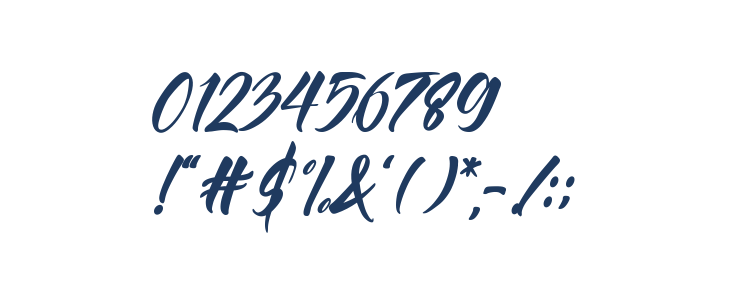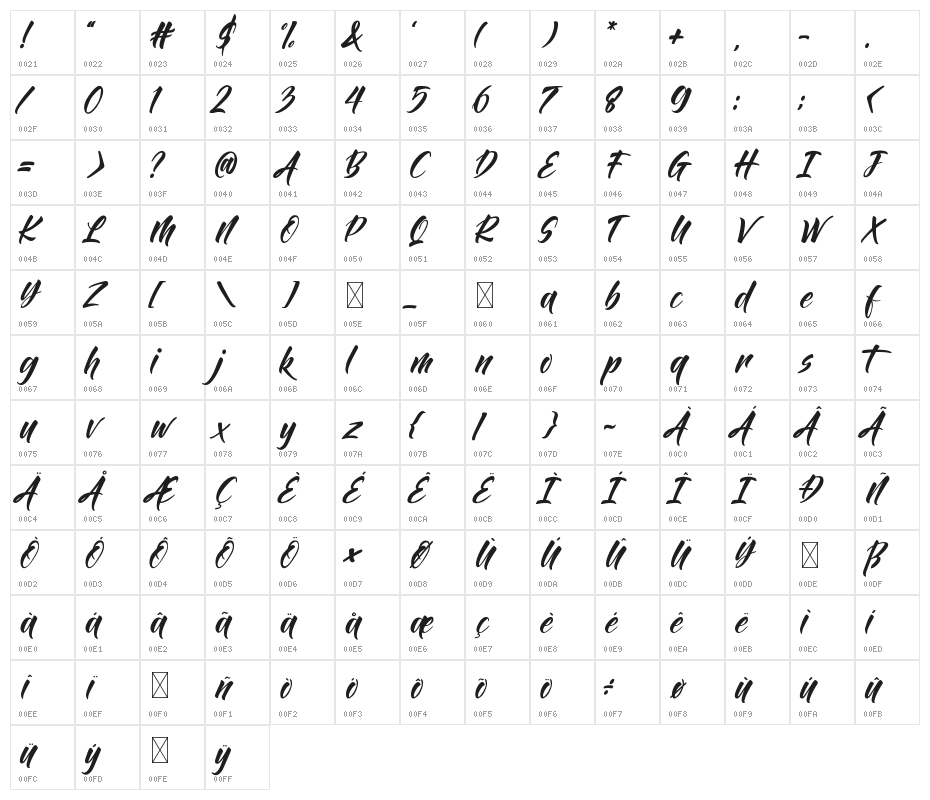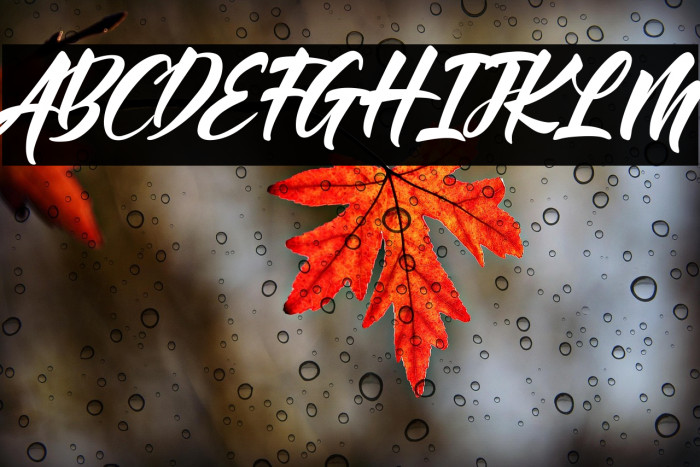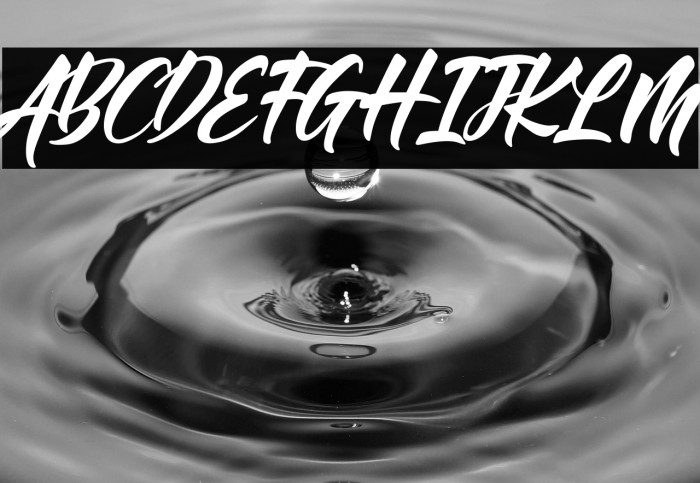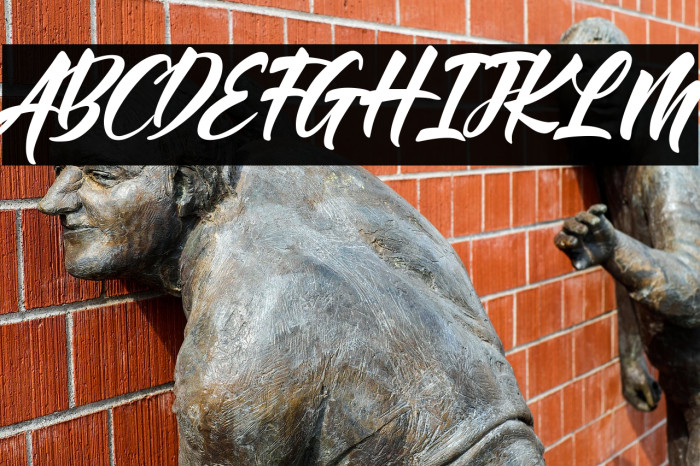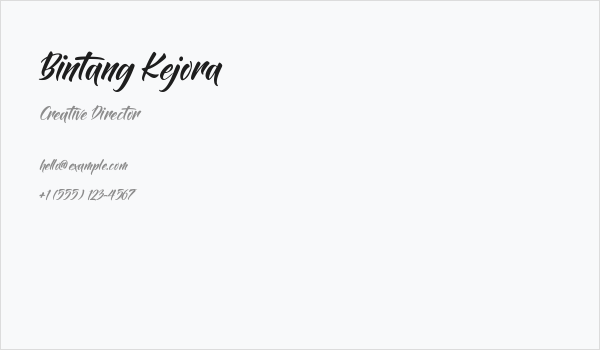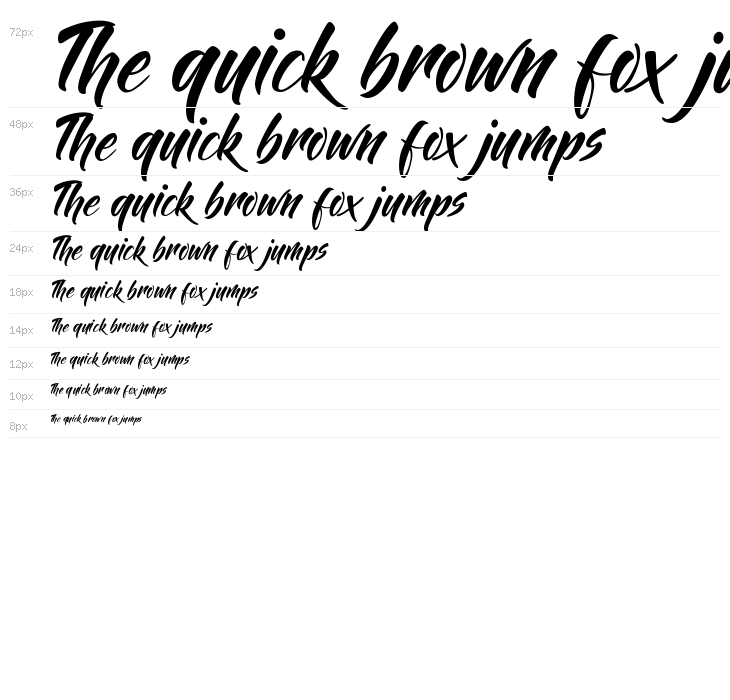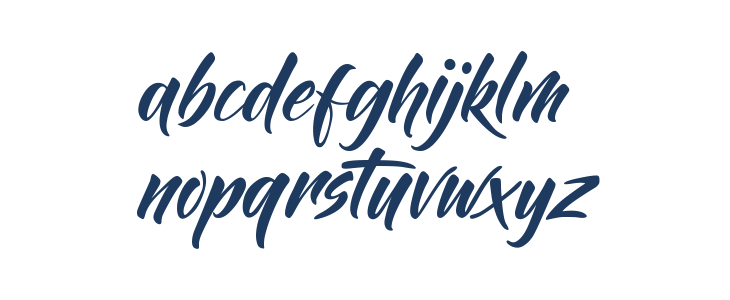
Bintang Kejora Font
Bintang Kejora Description
This font features a bold and dynamic script style, characterized by its fluid and expressive strokes. The letters are interconnected, giving a sense of continuity and flow, reminiscent of traditional calligraphy. The uppercase letters are particularly striking, with dramatic flourishes and curves that add a sense of elegance and movement. The lowercase letters maintain this fluidity, creating a cohesive and harmonious appearance. The numerals and special characters are crafted with the same attention to detail, ensuring consistency across all elements. This font is ideal for projects that require a touch of sophistication and artistic flair.
| Proposed Projects | Ideal for wedding invitations, branding, logo design, and artistic posters. |